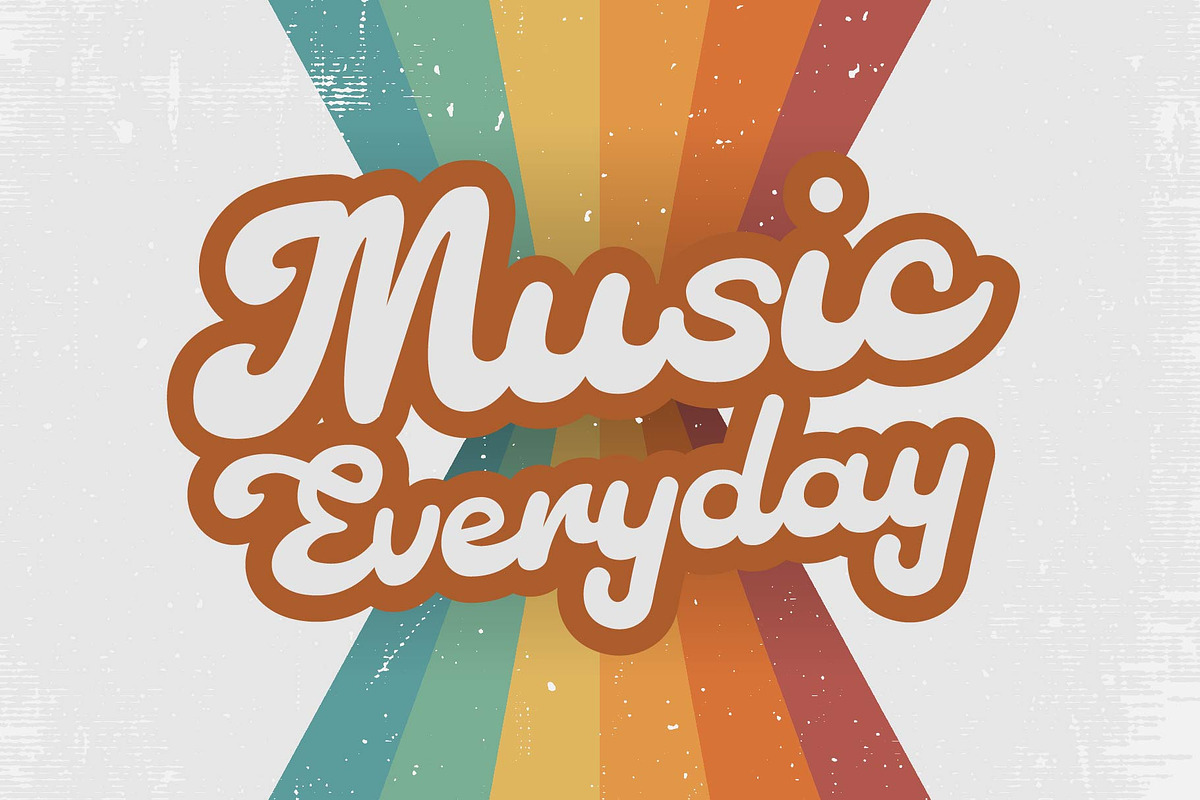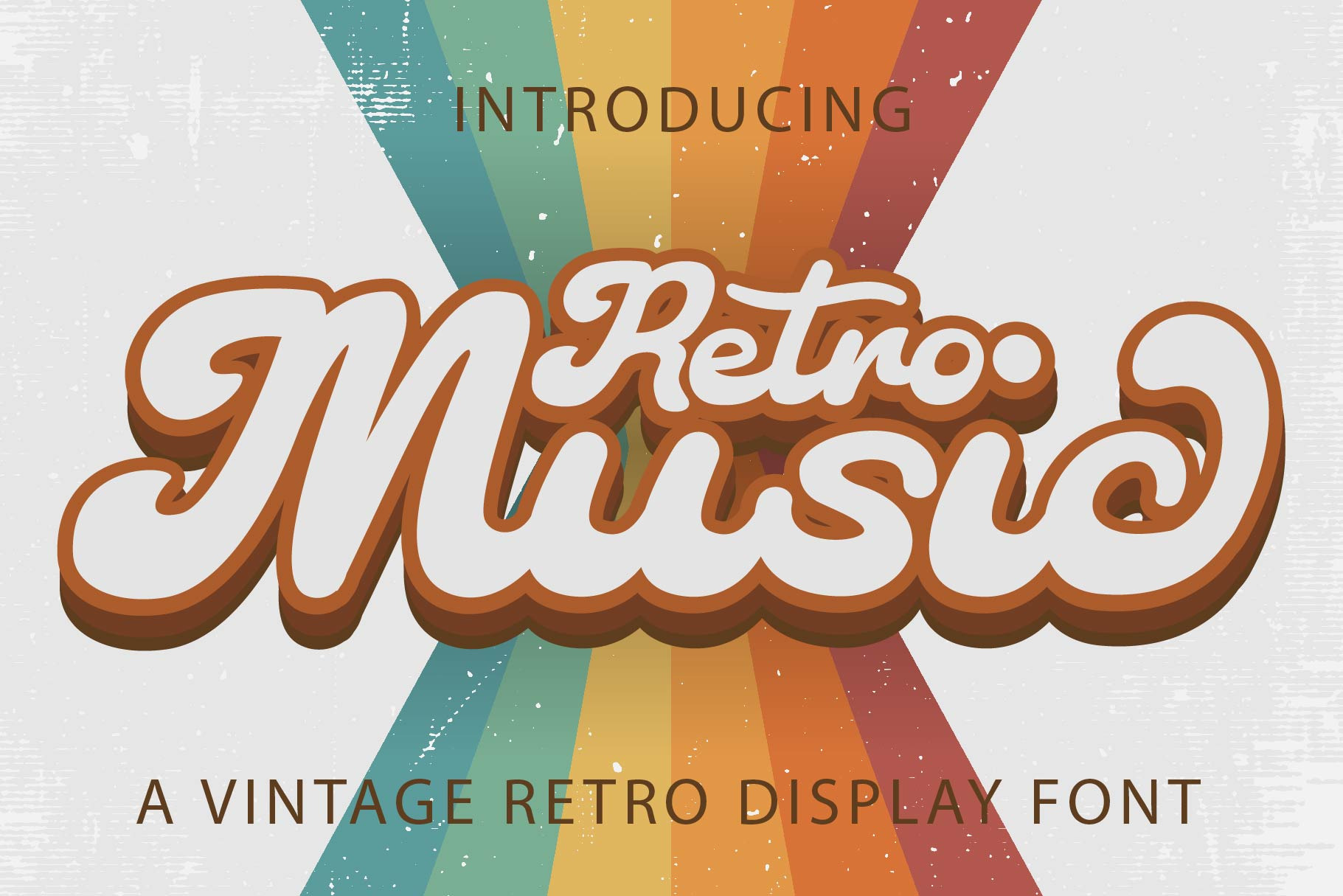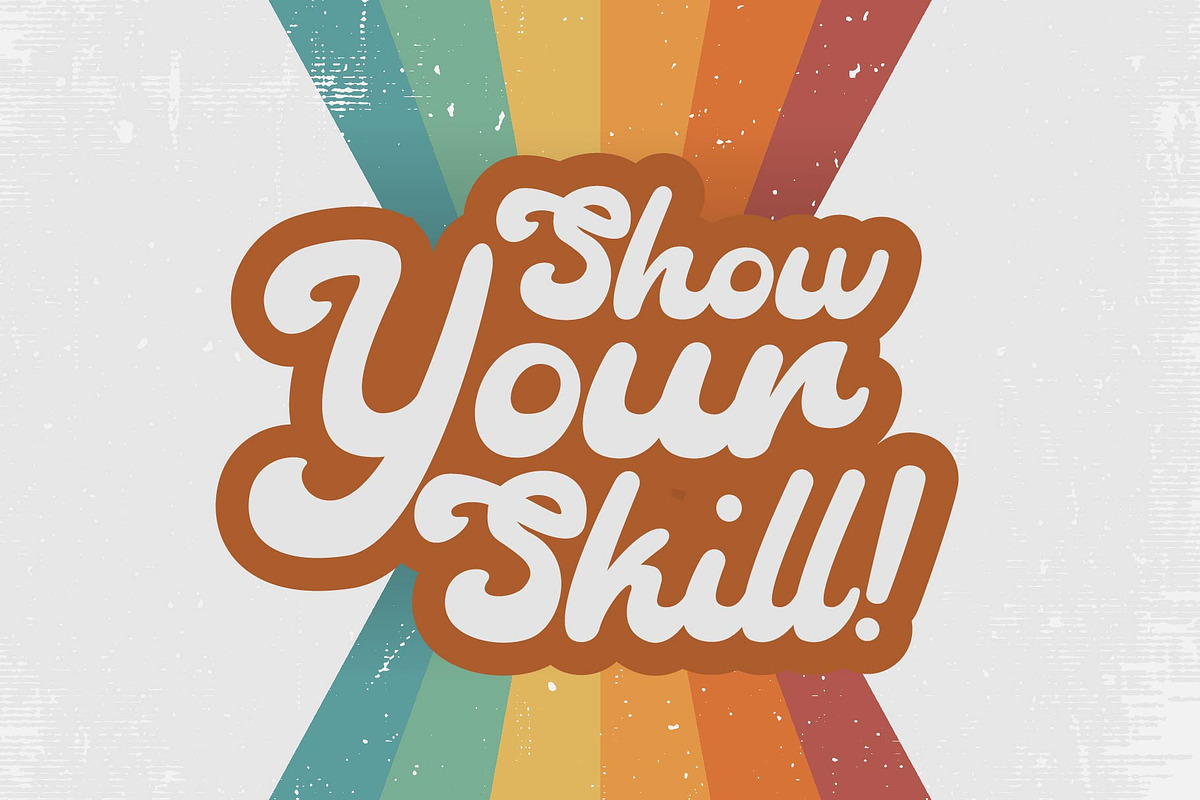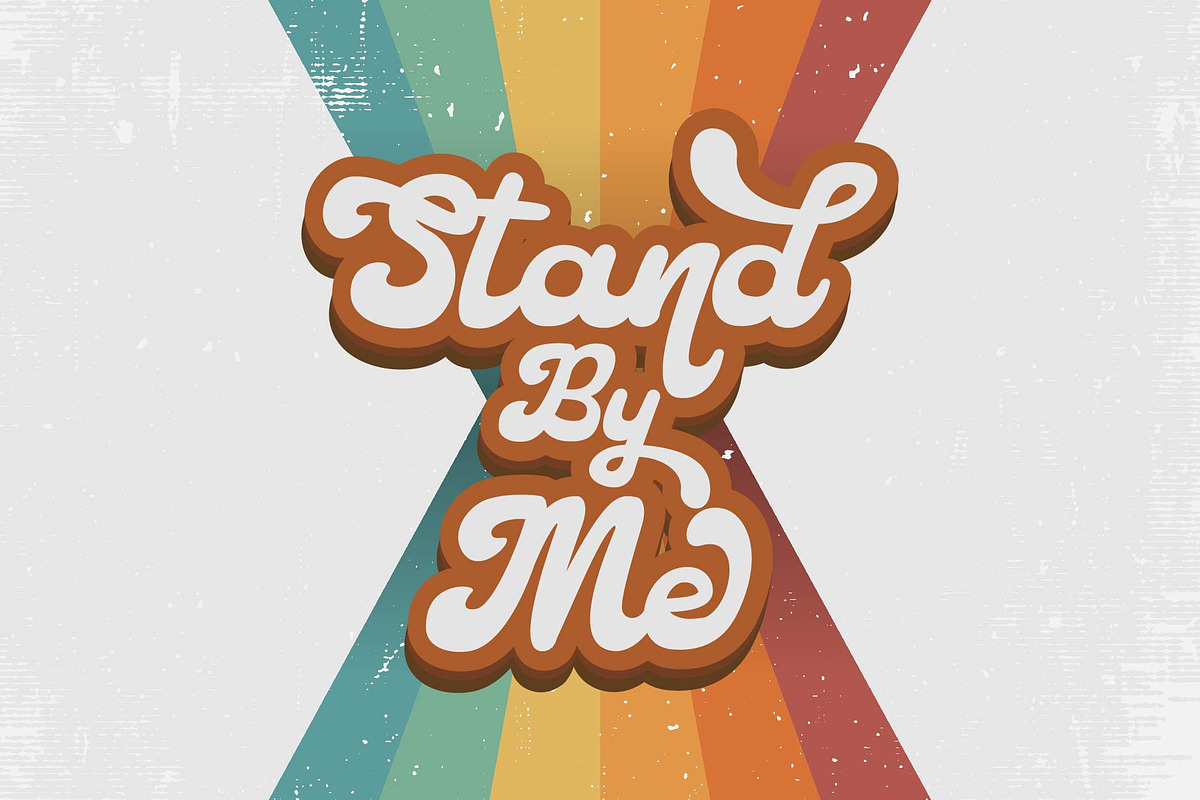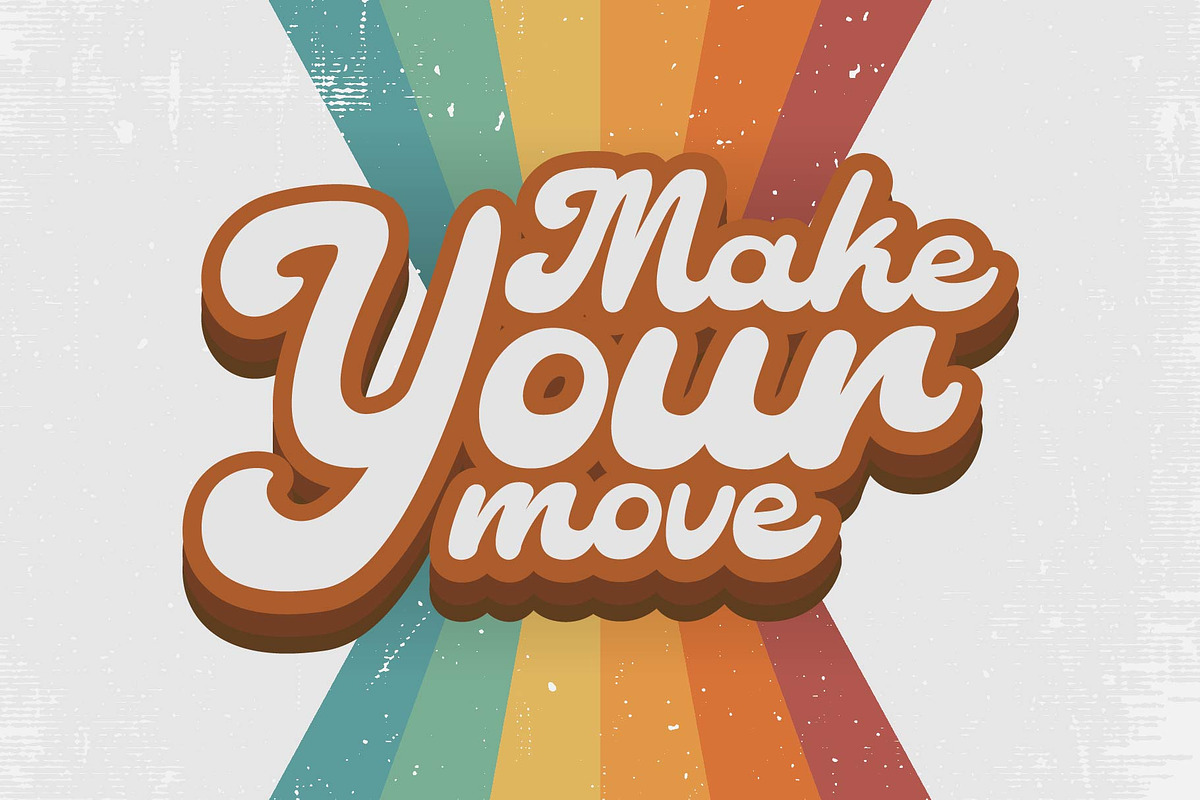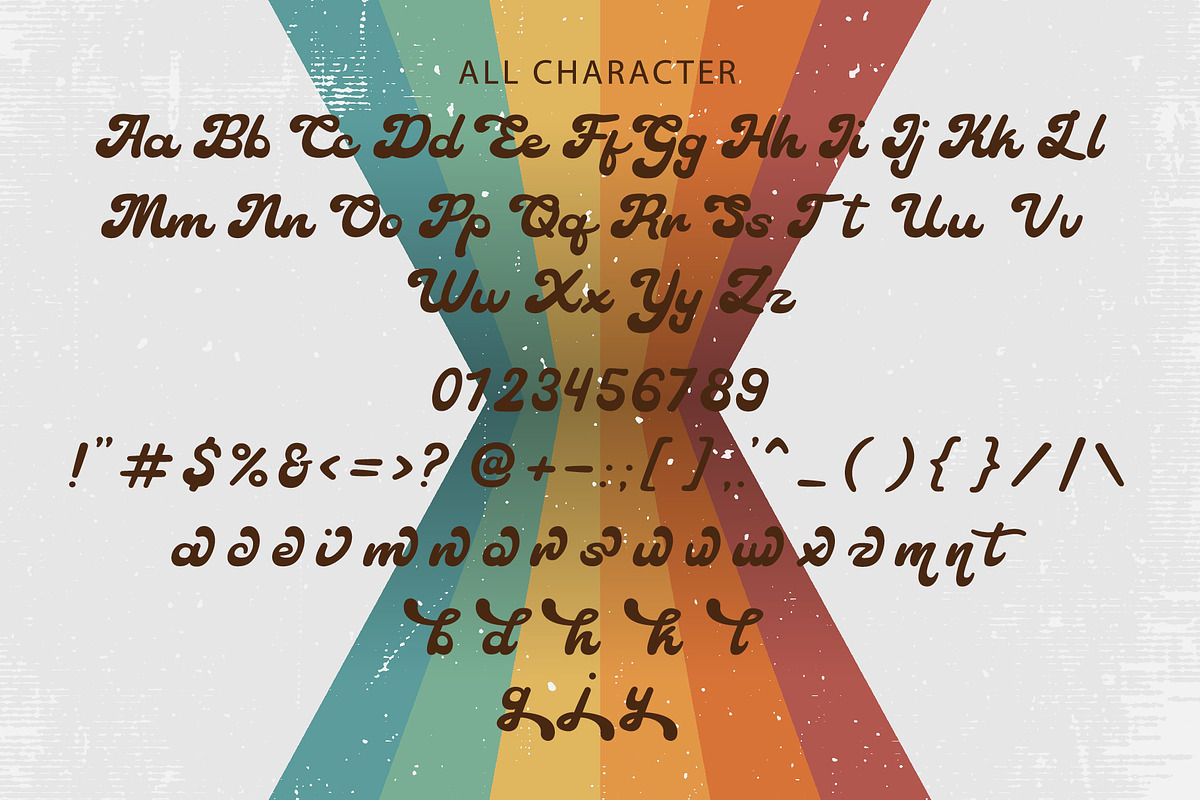
Retro Music - Retro Font
Retro Music Script is a cool, vintage-style display font. Use it to add that special retro touch to any design idea! It can be used for logos, branding, invitations, stationery, wedding designs, social media posts, and much more!